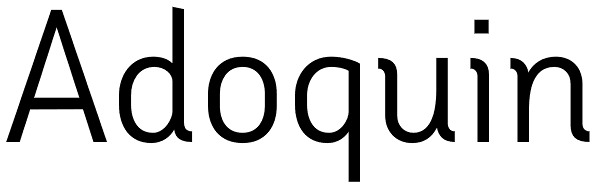
Adoquin
Adoquin is a clean and friendly semi serif family. It comes in seven weights with small caps, wich makes it a versatile typeface. The design is based on geometric sans serif typefaces and the calligraphic features of old school models, making...